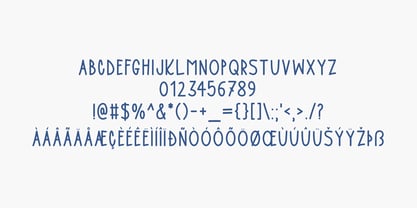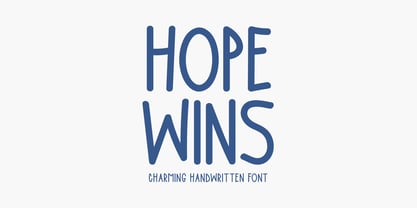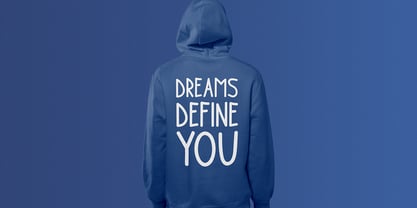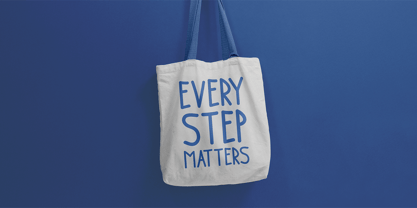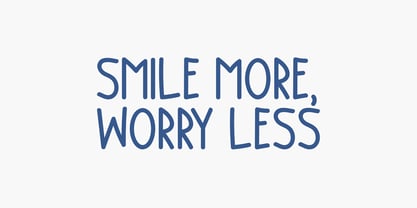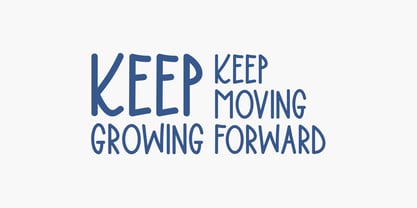
Hope Wins
The Hope Wins Font Family was designed by Md. Sohail Bhuiyan and published by Seemly Fonts. Hope Wins contains 1 styles. More about this family
Hope Wins is a sweet and charming handwritten font designed to bring positivity and elegance to your creations. Its gentle curves and flowing style make it perfect for a variety of projects, including stationery, apparel, branding, posters, invitations, and digital media. Whether you’re crafting something inspiring or simply adding a touch of beauty to your work, Hope Wins delivers a warm, handcrafted feel that speaks from the heart